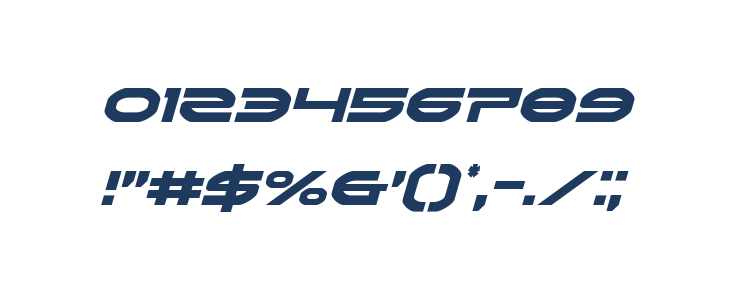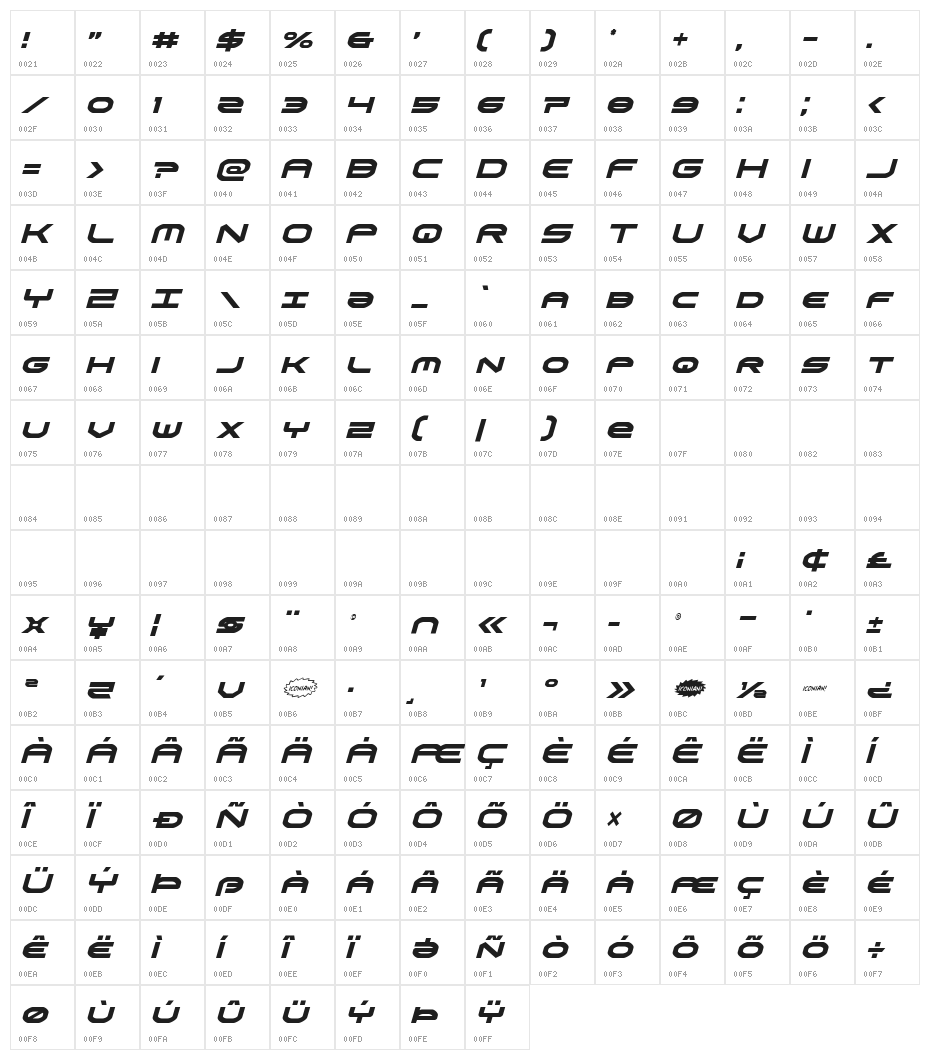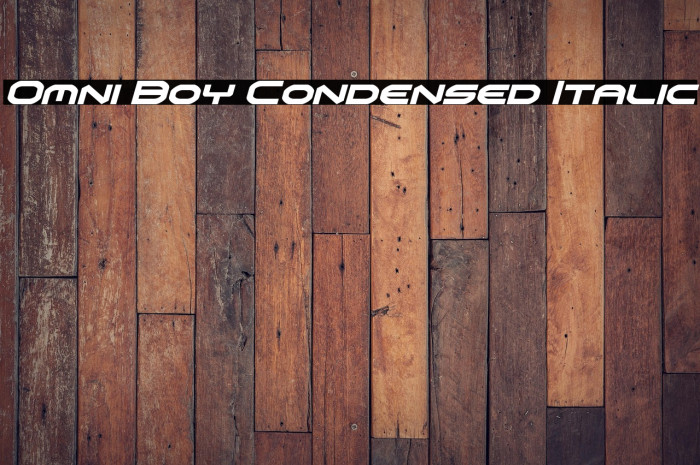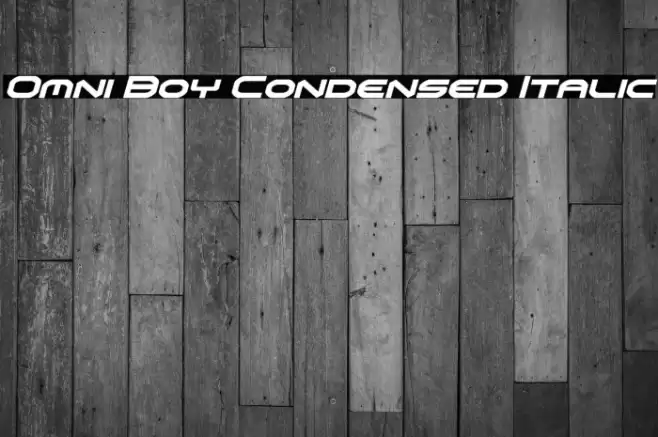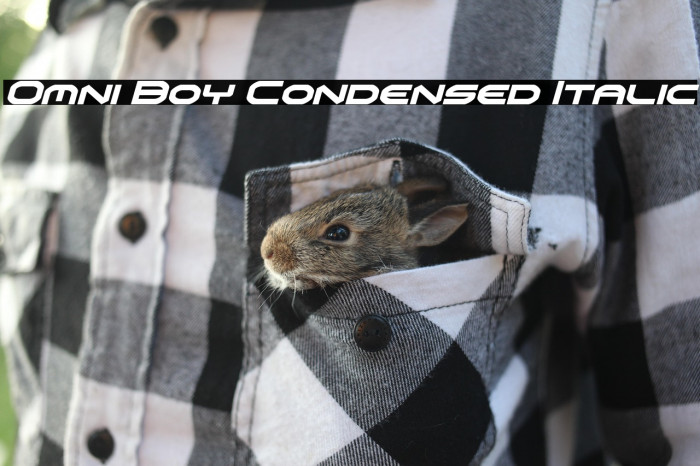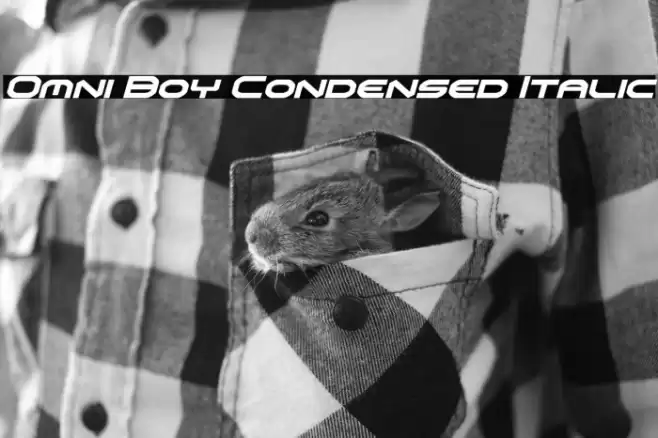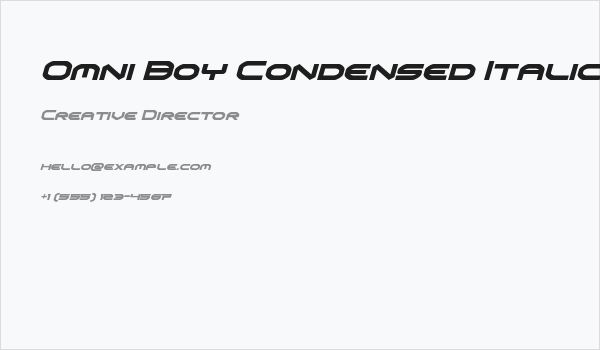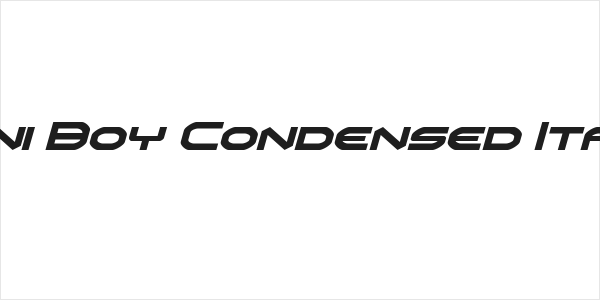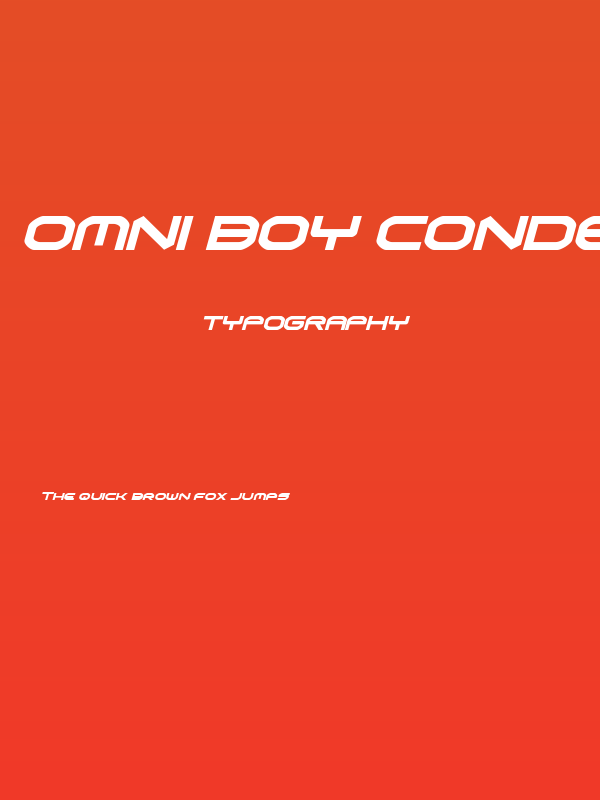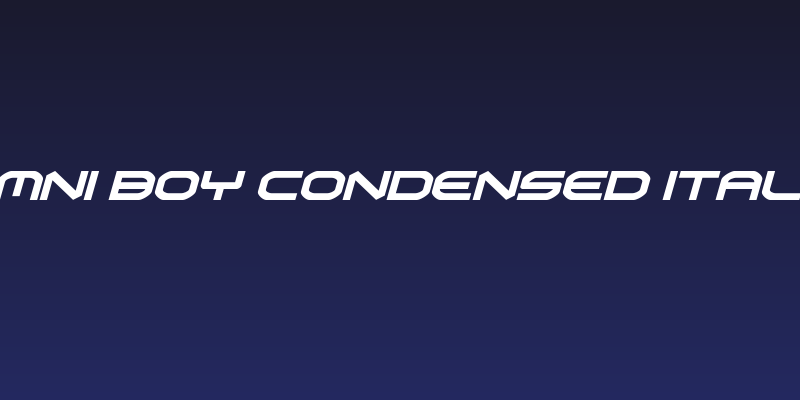
Omni Boy Condensed Italic Font
Omni Boy Condensed Italic Description
This font features a sleek, futuristic design with a condensed and italicized style. The characters are bold and angular, giving a sense of speed and modernity. The uppercase letters are consistent in height, while the lowercase letters maintain a uniform baseline. Numbers are distinct and align well with the overall aesthetic. Special characters are stylized to match the angular theme, providing a cohesive look across all glyphs. The font's condensed nature allows for efficient use of space, making it ideal for dynamic and impactful designs.